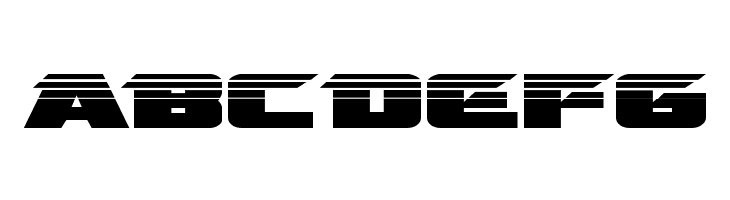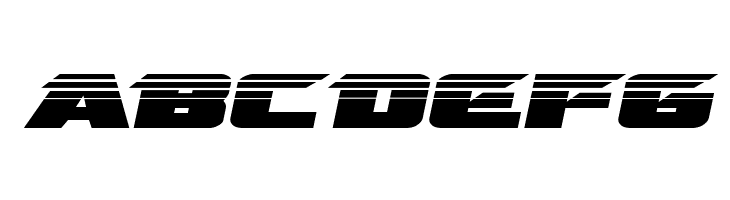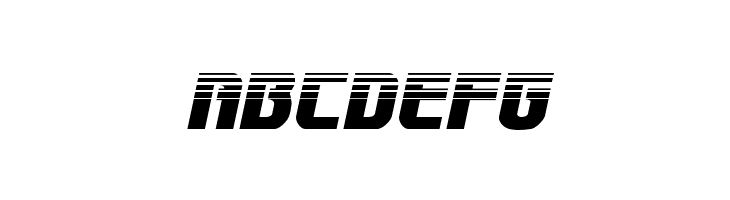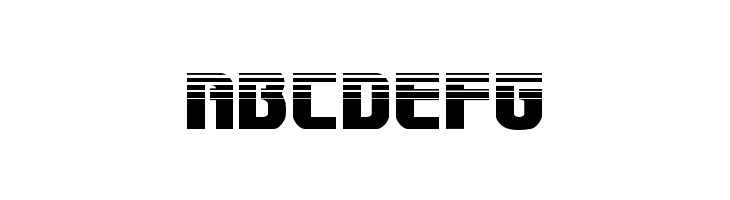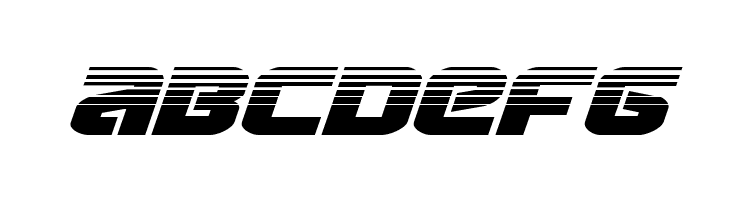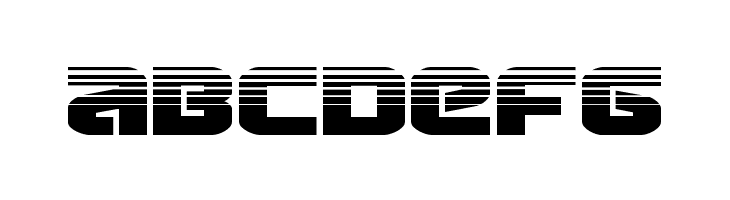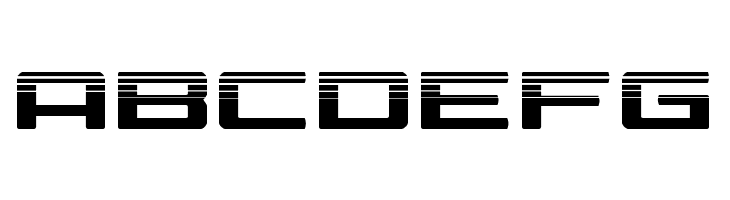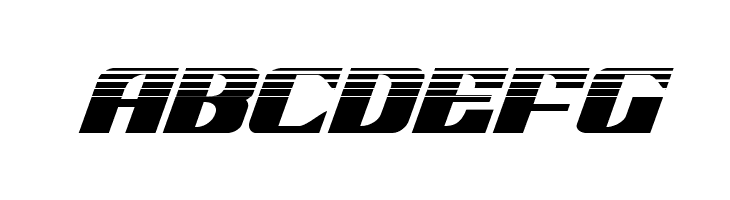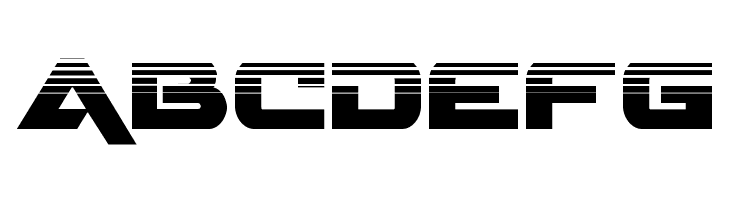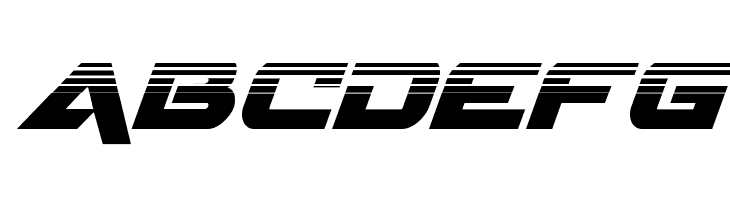
• Dark Alliance Halftone Italic
A bold, italicized font with a halftone effect, offering a futuristic and dynamic style.
• Dark Alliance Halftone
A bold, futuristic font with a halftone effect and geometric structure.
• Emissary Halftone
A bold, futuristic font with a halftone effect and geometric design.
• Emissary Halftone Italic
A bold, italicized font with a halftone effect and futuristic style.
• Speedwagon Halftone Italic
A bold, italicized font with a futuristic halftone effect.
• Speedwagon Halftone
A bold, halftone-effect font with a modern, geometric style.
• Terran Halftone Italic
A bold, italicized font with a futuristic, sporty design and halftone texture.
• Terran Halftone
A bold, futuristic font with a unique halftone pattern and geometric structure.
• Phoenicia Halftone
A futuristic halftone font with a bold, digital aesthetic.
• Phoenicia Halftone Italic
A bold, italicized font with a halftone effect, perfect for modern and dynamic designs.
• 21 Gun Salute Halftone
A bold, halftone-effect font with a striking, industrial style.
• 21 Gun Salute Halftone Italic
Bold, italicized font with a modern halftone effect and dynamic style.
• Gemina Halftone
A bold, futuristic font with a halftone effect and geometric design.
• Gemina Halftone Italic
A bold, italicized font with a futuristic halftone effect and dynamic style.
• Power Lord Halftone Italic
A bold, italicized font with a halftone effect, exuding a futuristic and dynamic style.
• Power Lord Halftone
A bold, halftone-effect font with dynamic, textured strokes.
• Union Gray Halftone
A bold, decorative font with a halftone effect and strong visual impact.
• Union Gray Halftone Semi-Italic
A bold, semi-italic font with a halftone effect, offering a dynamic and textured appearance.
• Union Gray Halftone Italic
A bold, italicized font with a halftone effect, perfect for dynamic and modern designs.
• Universal Jack Halftone Italic
A bold, italicized font with a futuristic halftone effect and modern appeal.
• Universal Jack Halftone
A bold, futuristic font with a halftone effect and geometric structure.